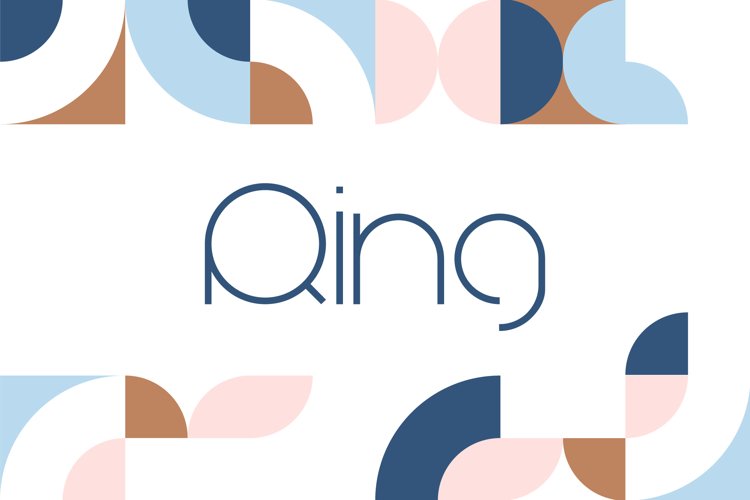
First of all, The Ring Sans Font has a little story. It was created as an example for Typography Exhibithion in Moscow. And font was immediately awarded! 8 years later, I decided to continue working on it and improve this font.
Ring - Really Circular Typeface
I felt inspired by Bauhaus. I've always wanted to design something similar.
Ring Sans Font comes in 3 weights and 6 styles. The font supports the Latin and Cyrillic alphabet.
Ring Sans is just the beginning of the future big Font Family called Ring!